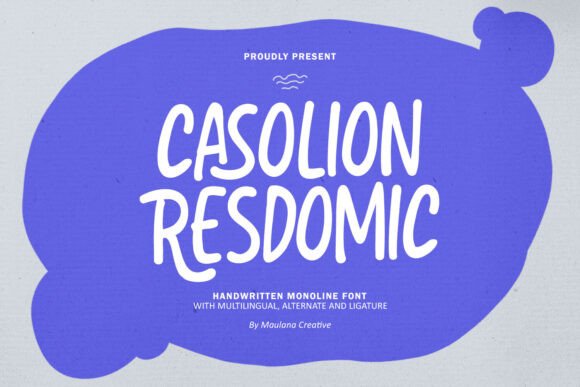
Discover the Delightful Charm of Casolion Resdomic Font
Have you ever been in the middle of a design project, and suddenly, you just can’t seem to find the right font? I recall a recent experience where I was working on a branding project for a children’s toy company, and I needed a font that was playful, friendly, and conveyed a sense of joy. That’s when I stumbled upon Casolion Resdomic, a wonderfully playful and organic handwritten monoline font that instantly captured the essence of what I was looking for.
What Makes Casolion Resdomic Special?
Casolion Resdomic is designed to inject a dose of personality and fun into your designs. With its charming, slightly irregular lines and rounded, casual shapes, this font captures the feel of genuine, hand-drawn lettering. It’s perfect for projects that need a friendly and quirky touch, shining in branding, product packaging, posters, t-shirt designs, social media graphics, quotes, and children’s projects.
Key Features of Casolion Resdomic
• ✨ Handwritten Monoline Style: Gives a clean, yet authentically handmade look.
• ✅ Full Character Set: Includes uppercase, numbers, and standard punctuation.
• 🌎 Multilingual Support: Extensive support for various European languages.
• 🎨 Alternate Characters & Ligatures: Provides extra options for customization and a natural flow.
• 💕 The playful and organic feel of Casolion Resdomic makes it perfect for creative projects.
• 👍 The font is highly versatile and can be used for a wide range of applications.
• 💬 The multilingual support is a huge plus for global design projects.
⚠️ One thing to note is that, like any handwritten font, Casolion Resdomic may not be the best choice for very formal or corporate projects. Additionally, some users might find the irregularities in the lines a bit distracting if they’re used to more uniform fonts.
The Story Behind Casolion Resdomic
Casolion Resdomic was inspired by the designer’s love for hand-drawn lettering and the desire to create a font that feels both modern and nostalgic. The goal was to craft a font that would bring a smile to the viewer’s face and make any project feel more approachable and fun.
Does Casolion Resdomic include OpenType features? Yes, Casolion Resdomic includes OpenType features like alternate characters and ligatures, allowing for a high level of customization.
Is Casolion Resdomic easy to read? Despite its playful nature, Casolion Resdomic is highly legible, making it suitable for both headlines and body text.